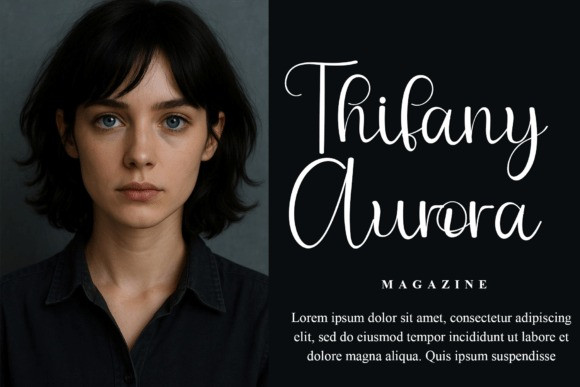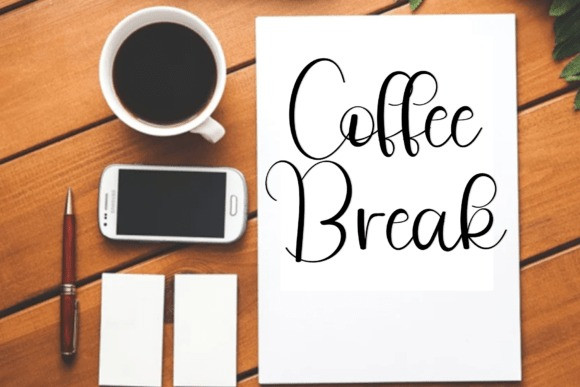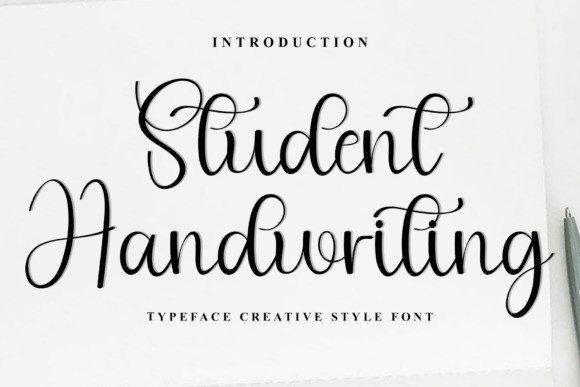
Student Handwriting Font
Student Handwriting Font is a playful and flowing handwritten font that captures the charm of youthful penmanship.With its bouncy baseline and swirly ligatures, this font brings a fresh and informal personality to your creative projects. It’s ideal for educational materials, journaling, greeting cards, quote designs, and playful branding.
The elegant swashes and alternate characters make customization easy and fun, while still keeping the look friendly and readable. Perfect for teachers, creatives, and crafters alike.